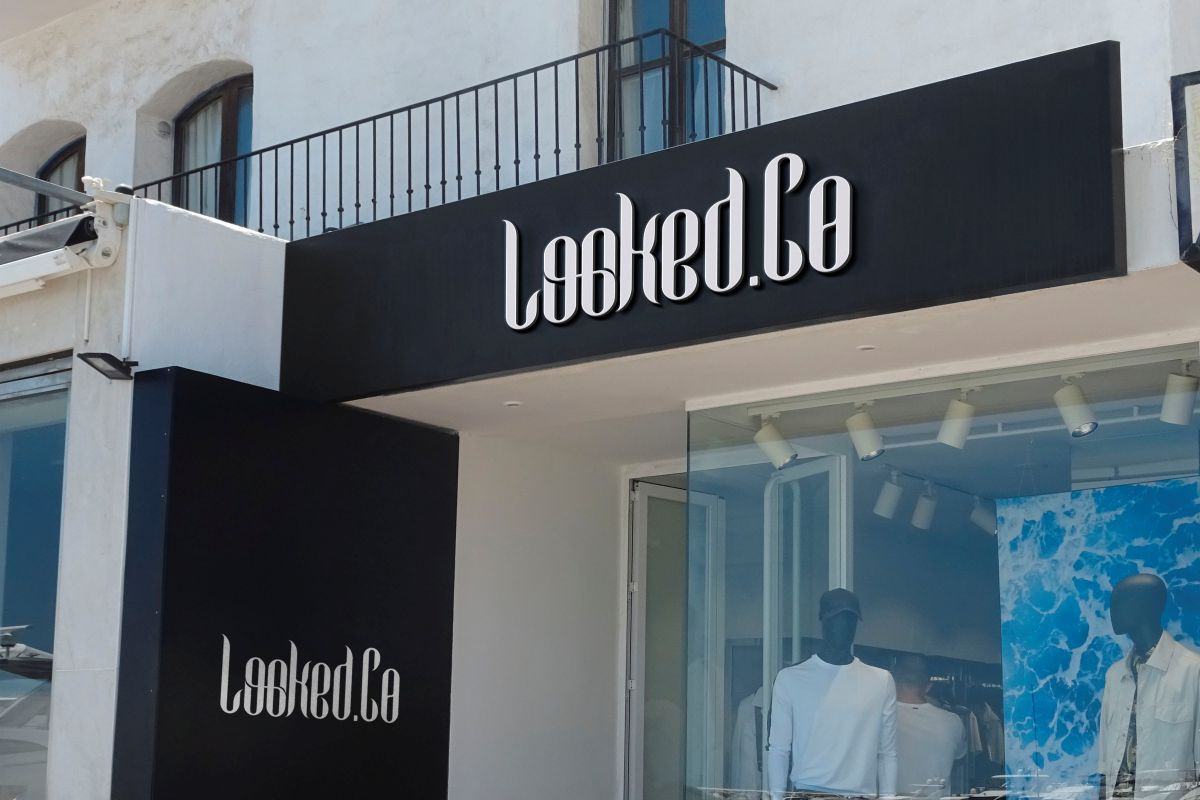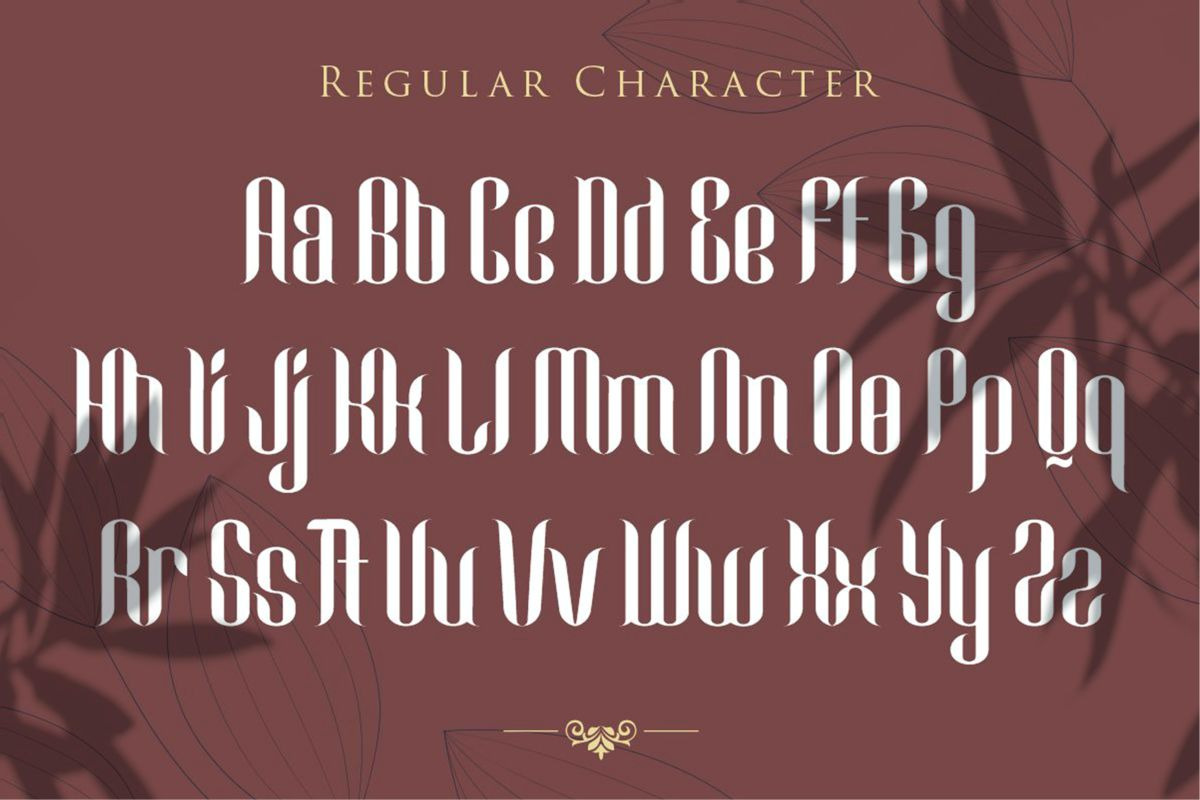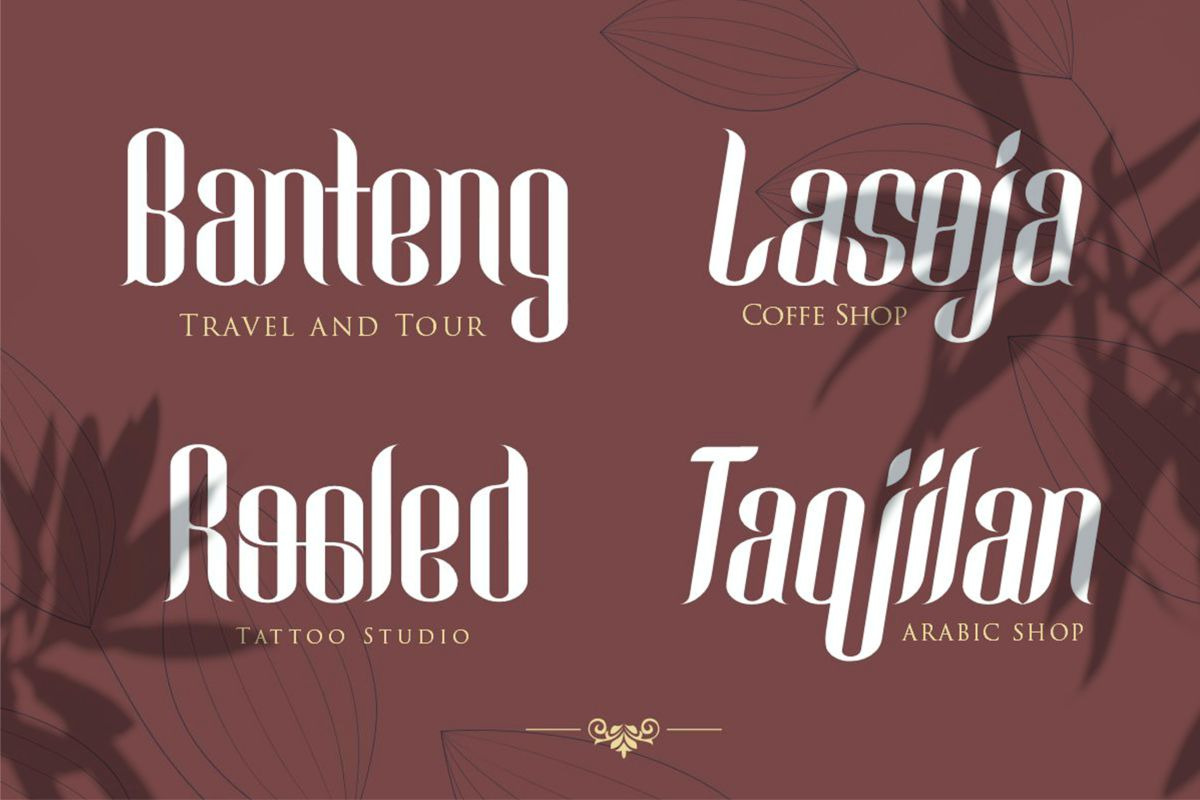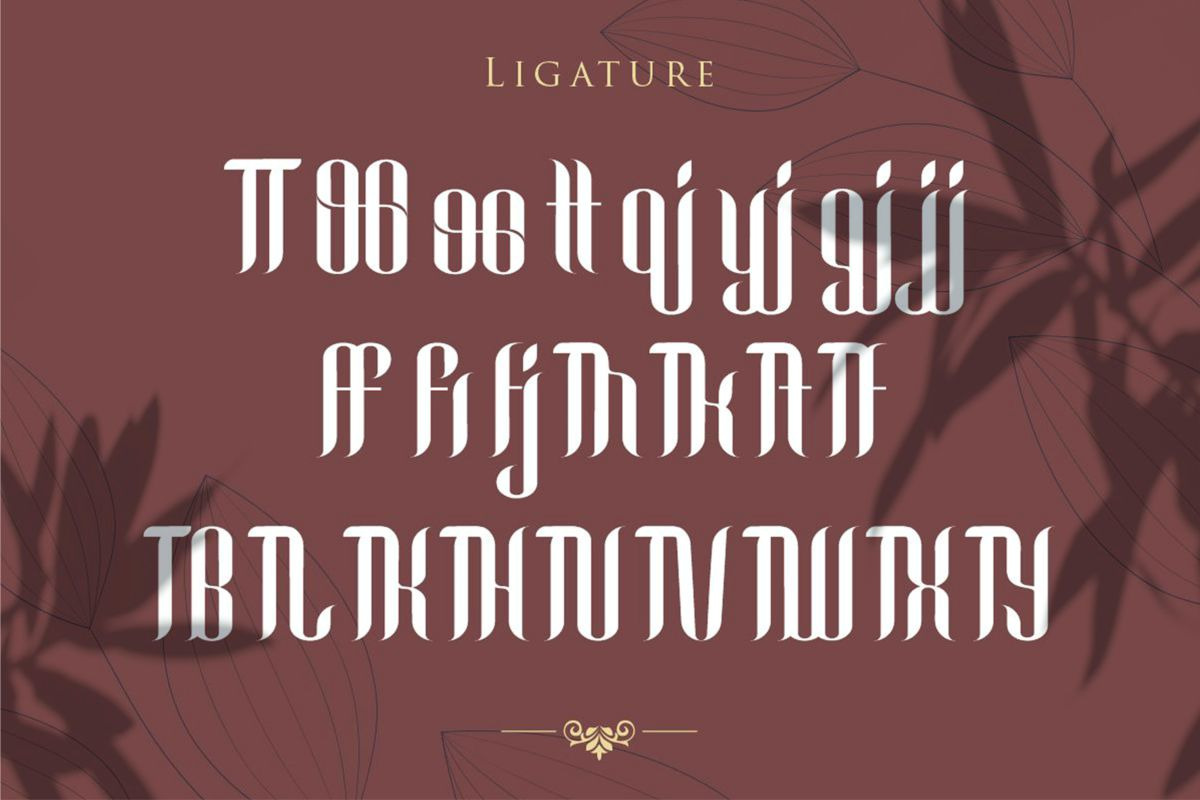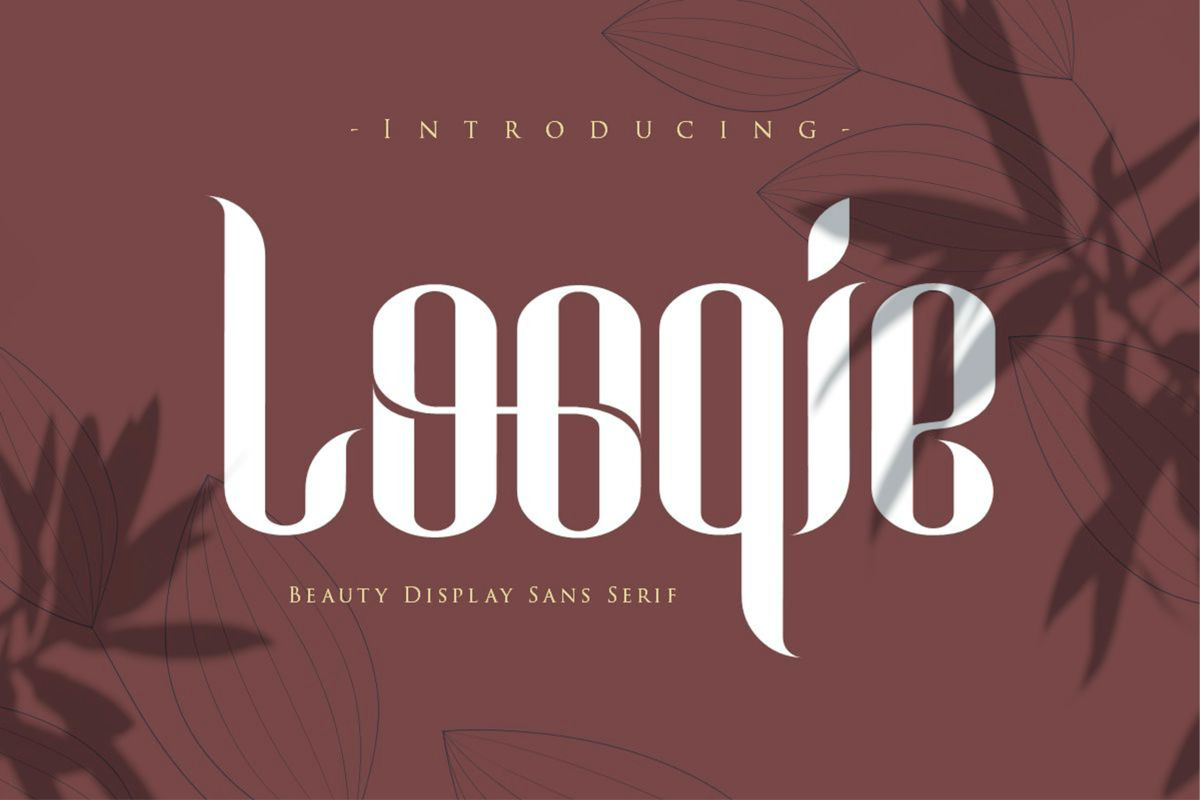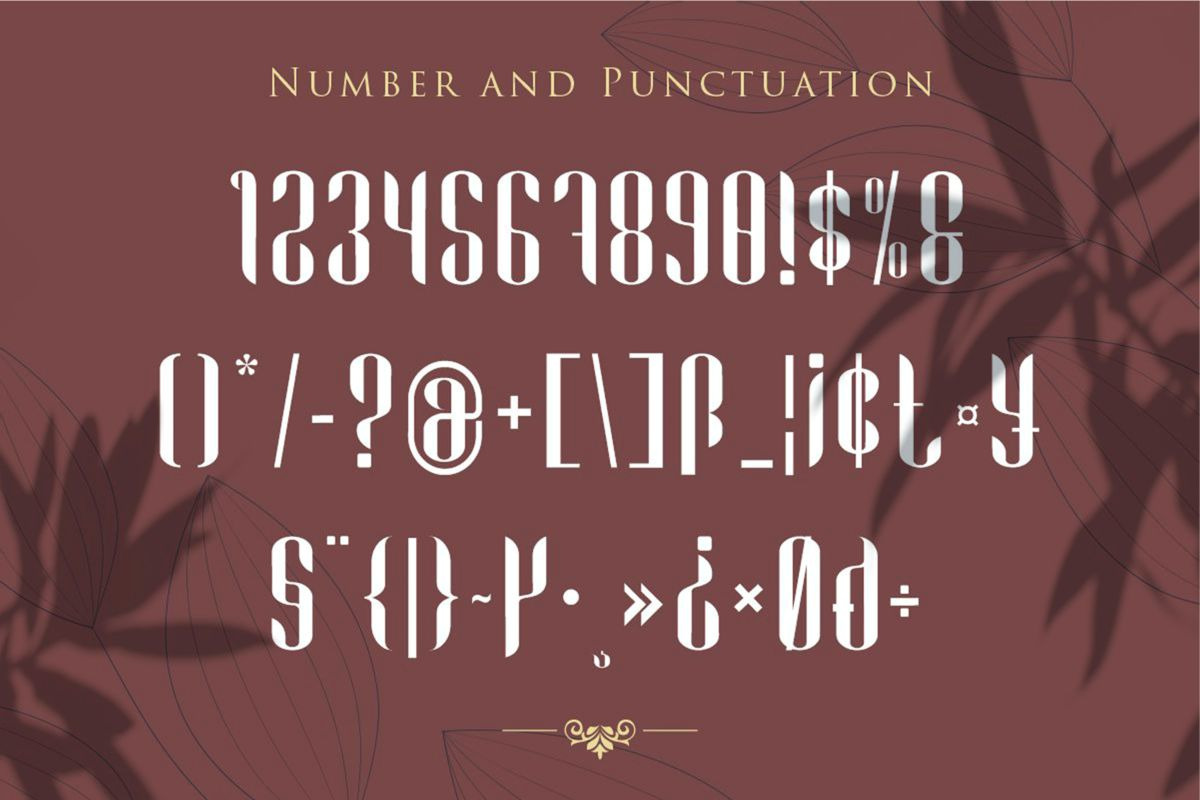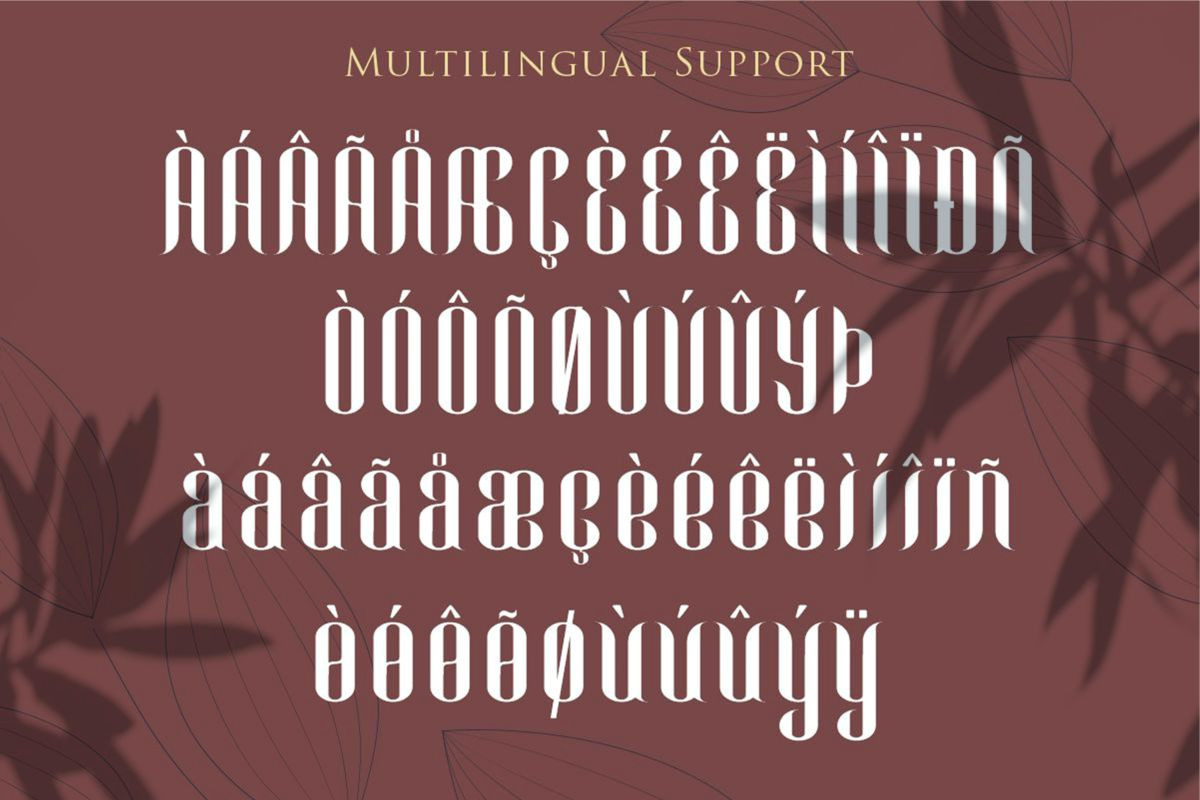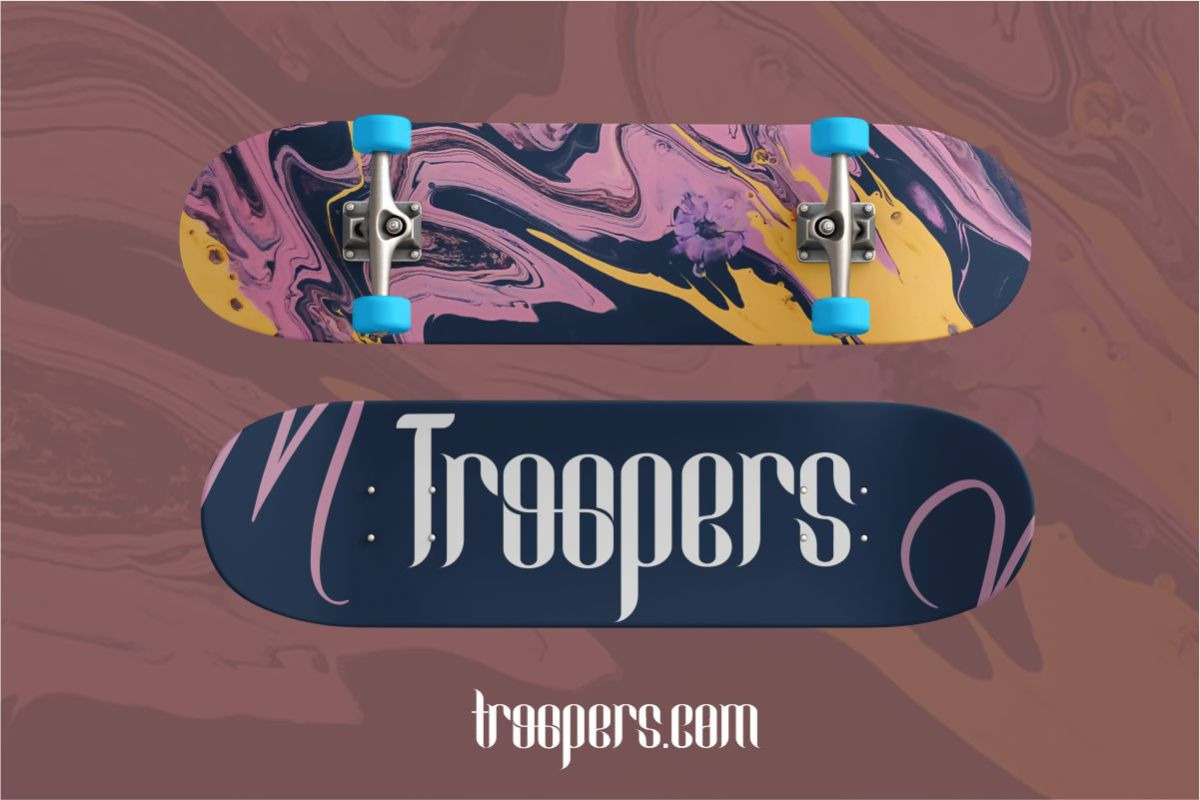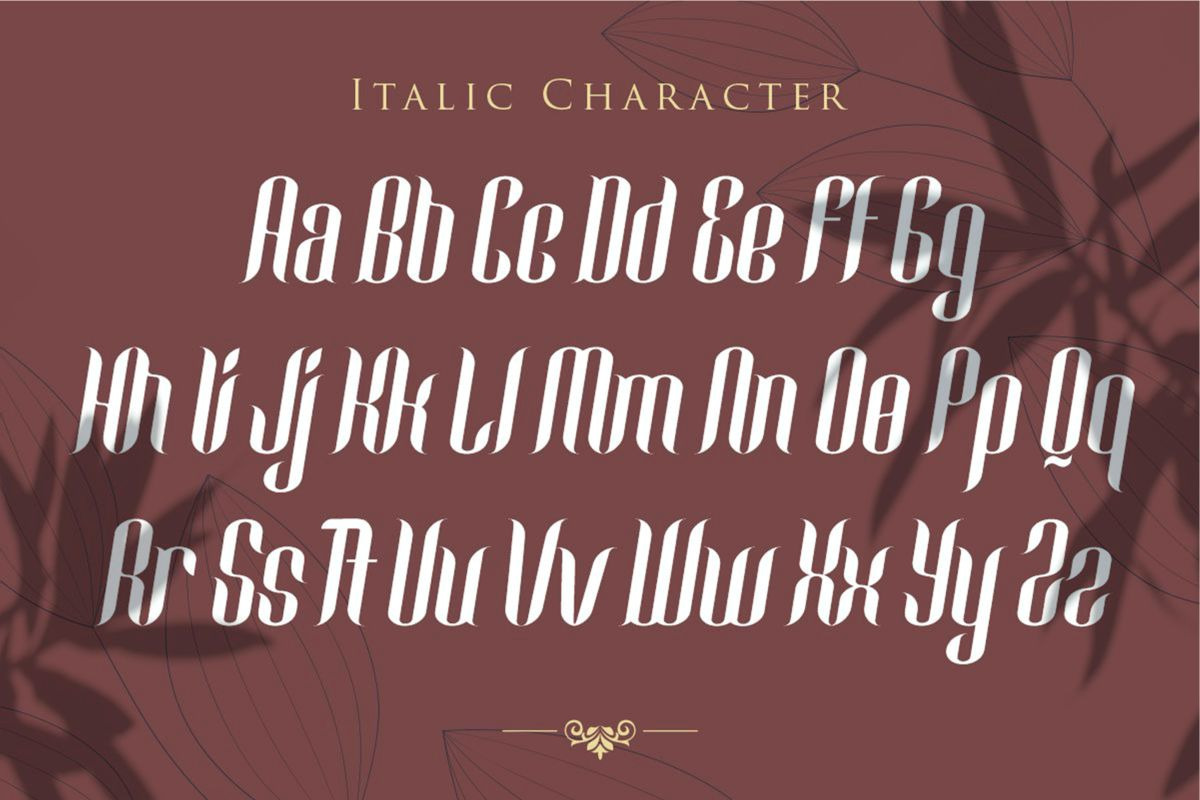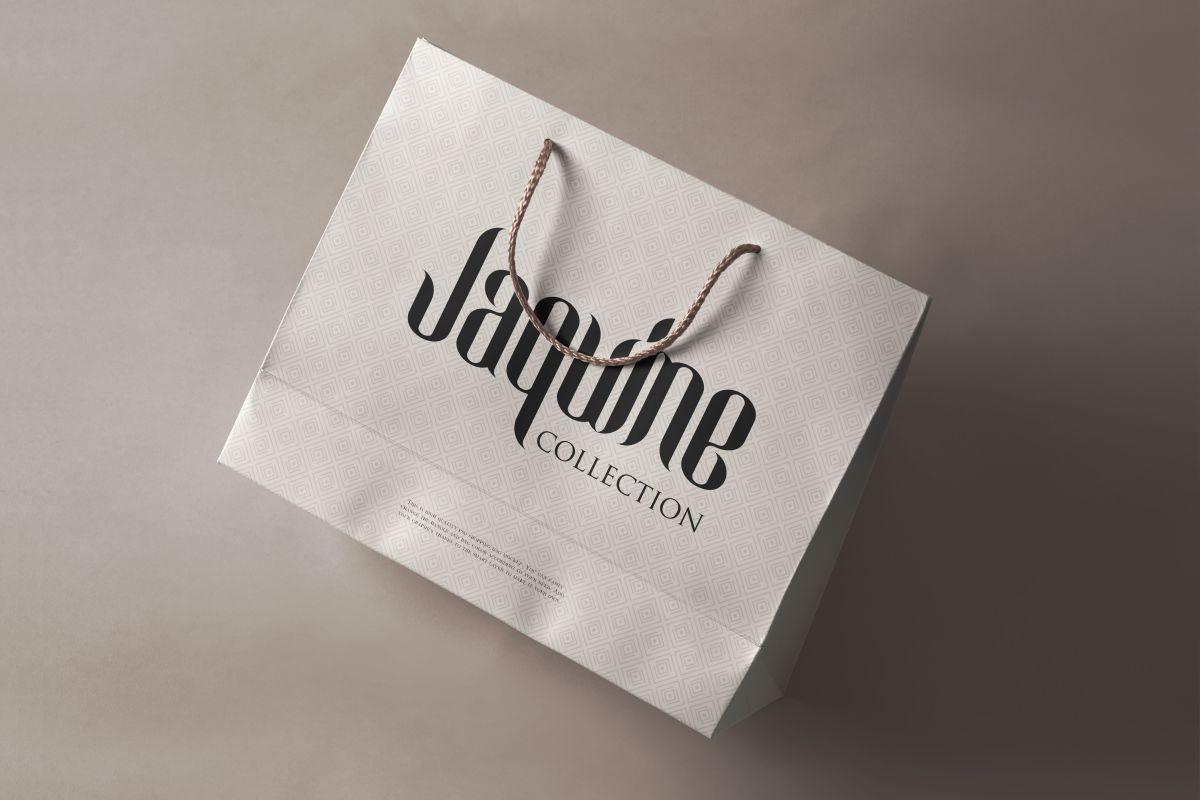
Looqie | Beauty Display Font
Introducing New Font : Looqie - Beauty Display Font
Is my new elegant with Regular and Oblique serif font that will bring in your projects a touch of Beauty
Looqie will work perfectly for fashion, e-commerce brands, trend blogs, wedding boutiques or any business that wants to appear upscale. Flip through all the previews and get inspired like I was while creating this font
Looqie also Suitable for Logo, greeting cards, quotes, posters, branding, name card, stationary, design title, blog header, art quote, modern envelope, book design any DIY project to make your art/design project look pretty and trendy.
Numerals & Punctuations (OpenType Standard)
Accents/Multilingual characters
29 Ligature